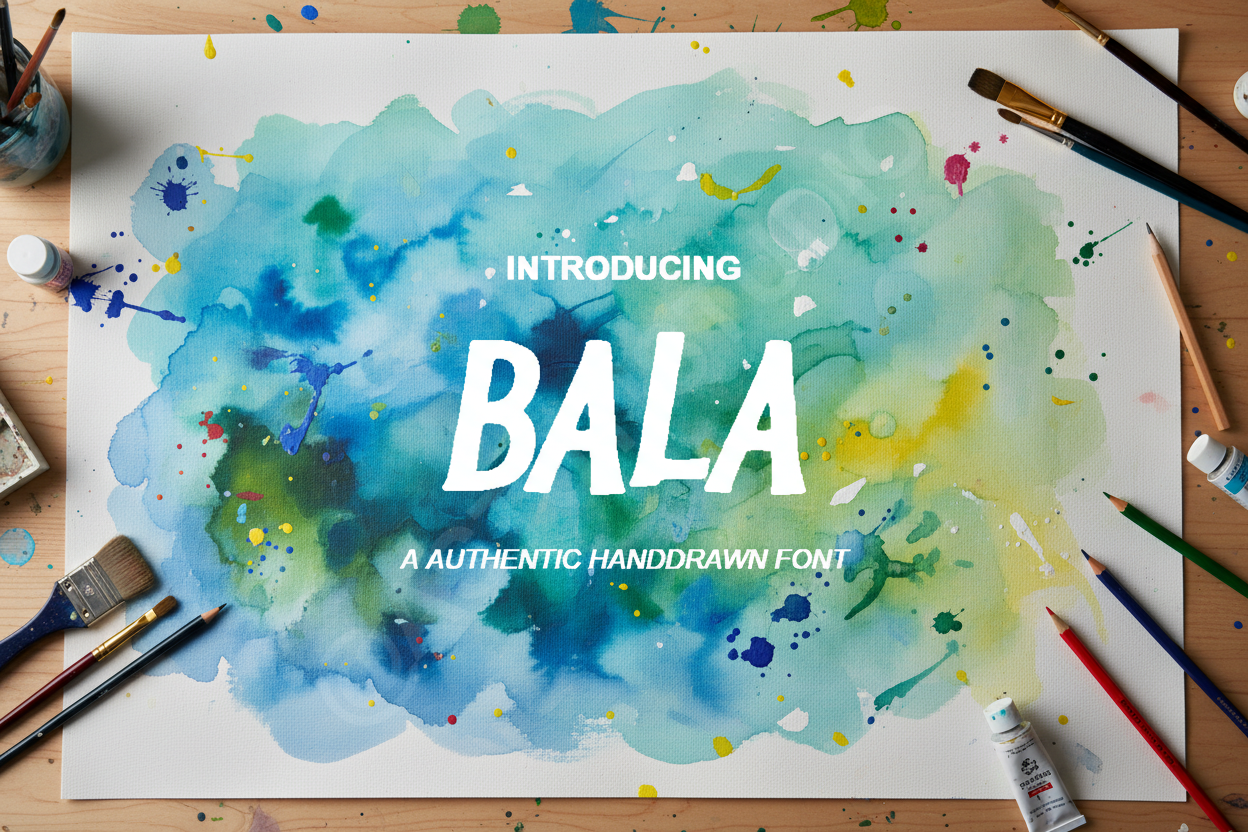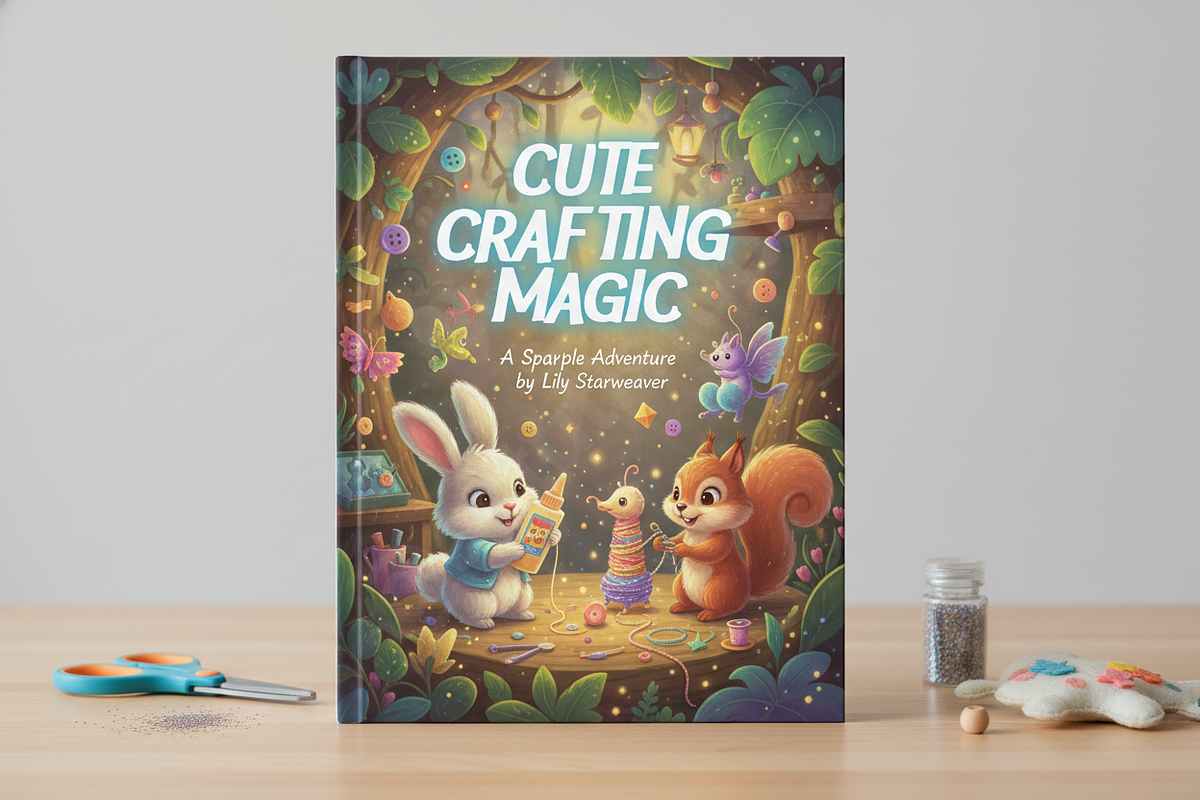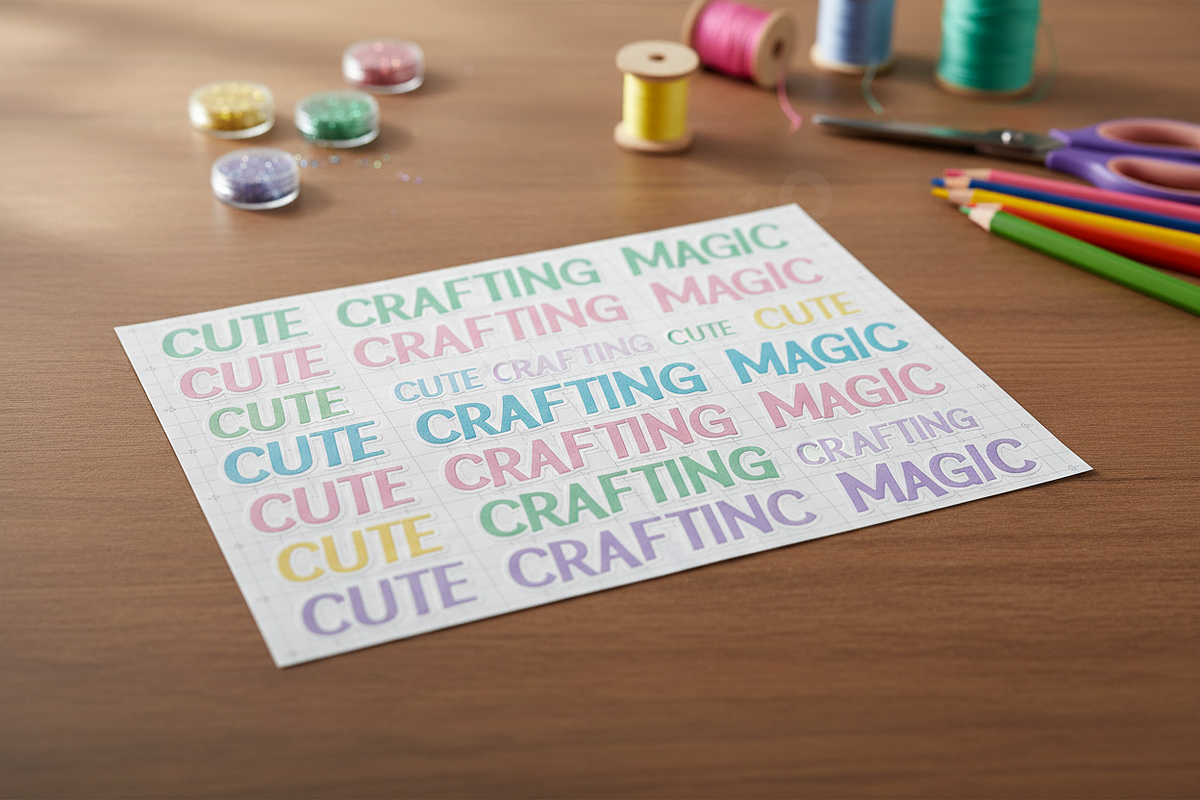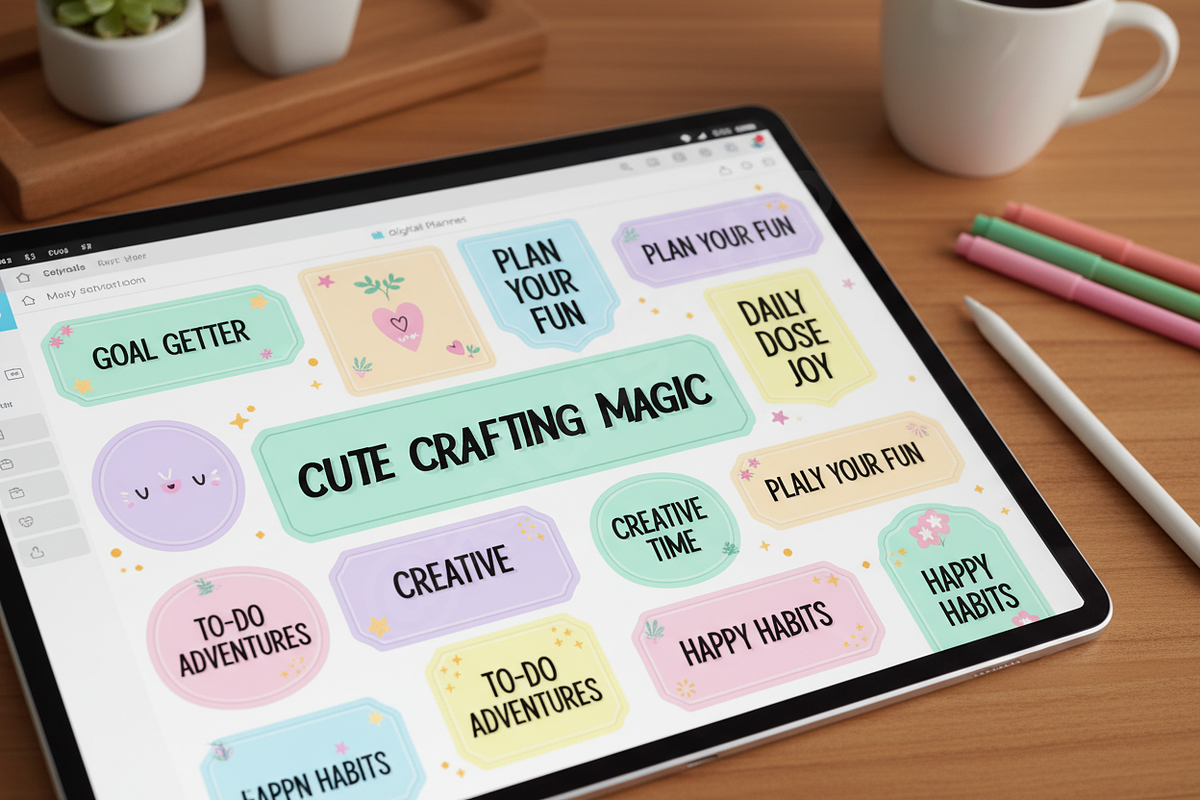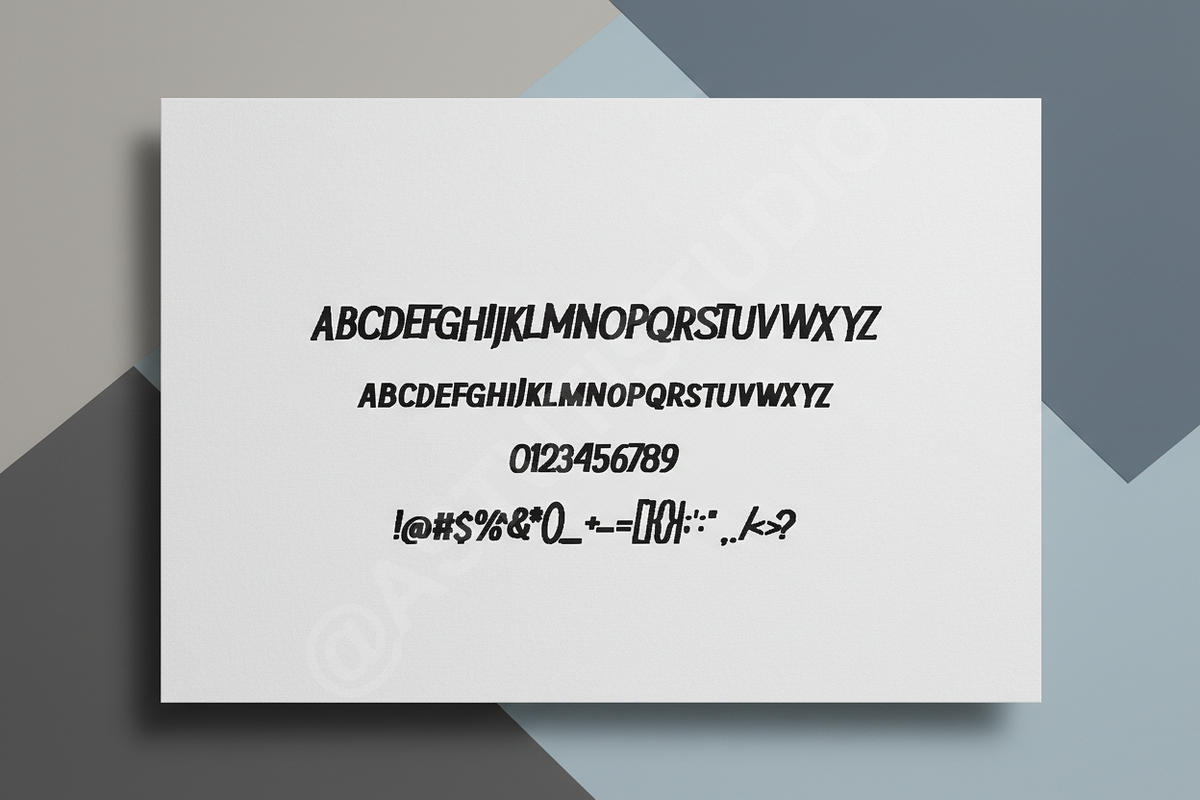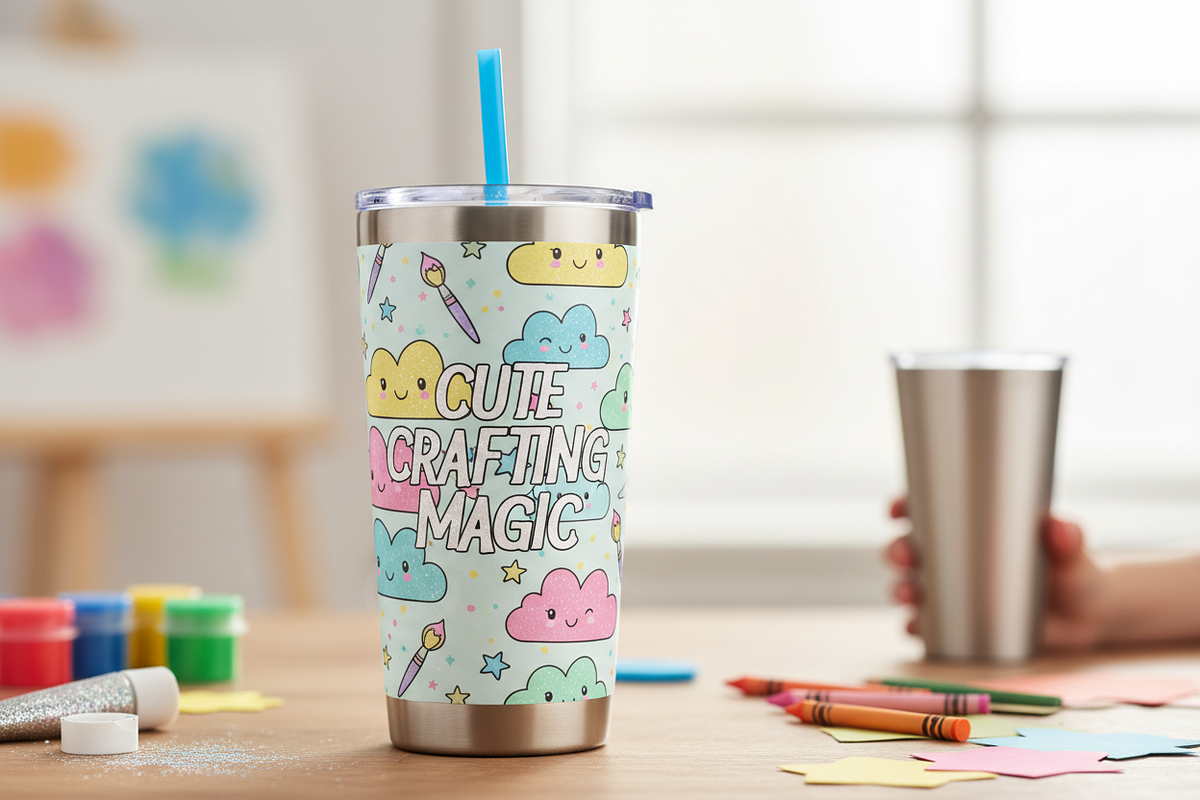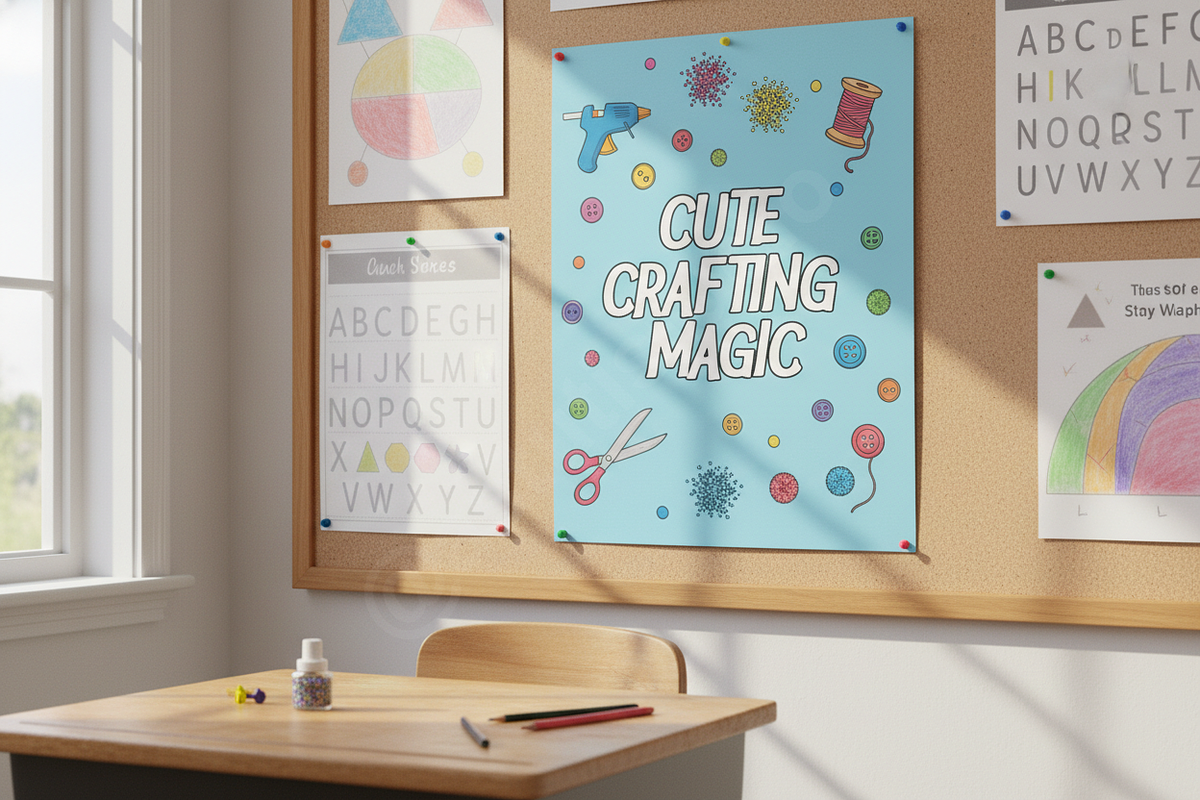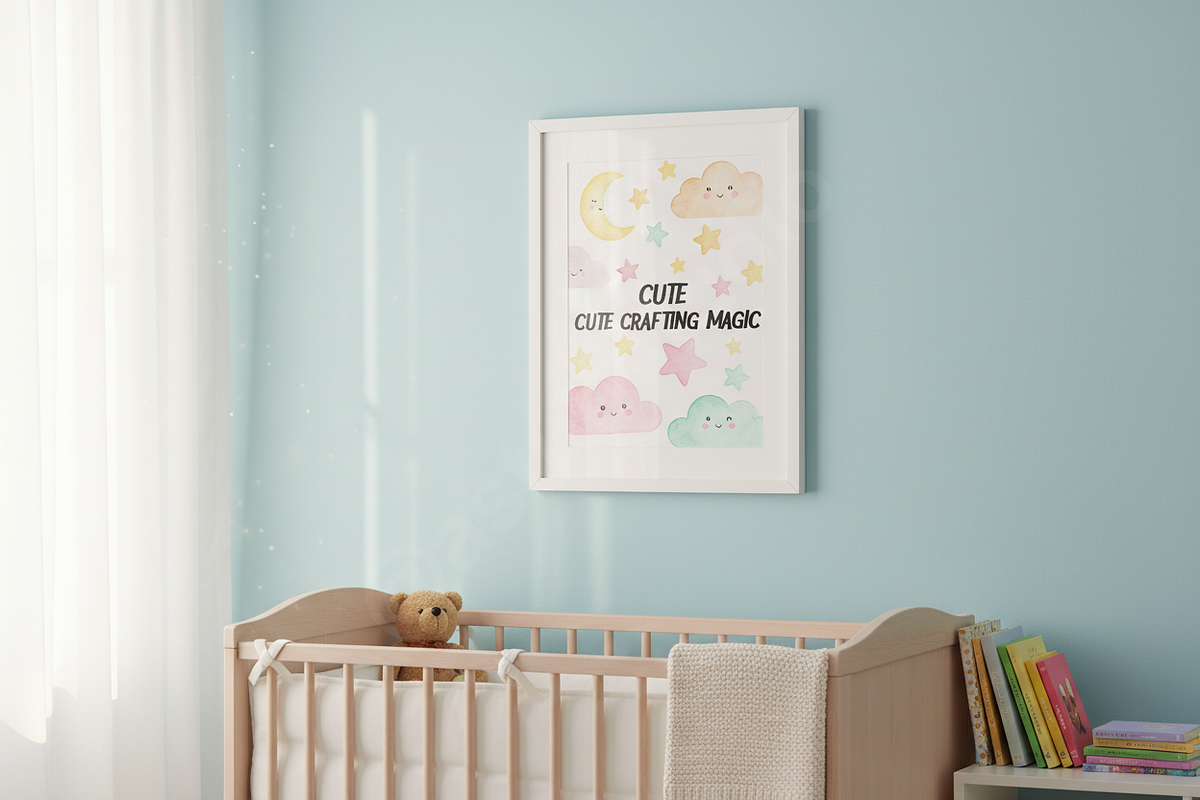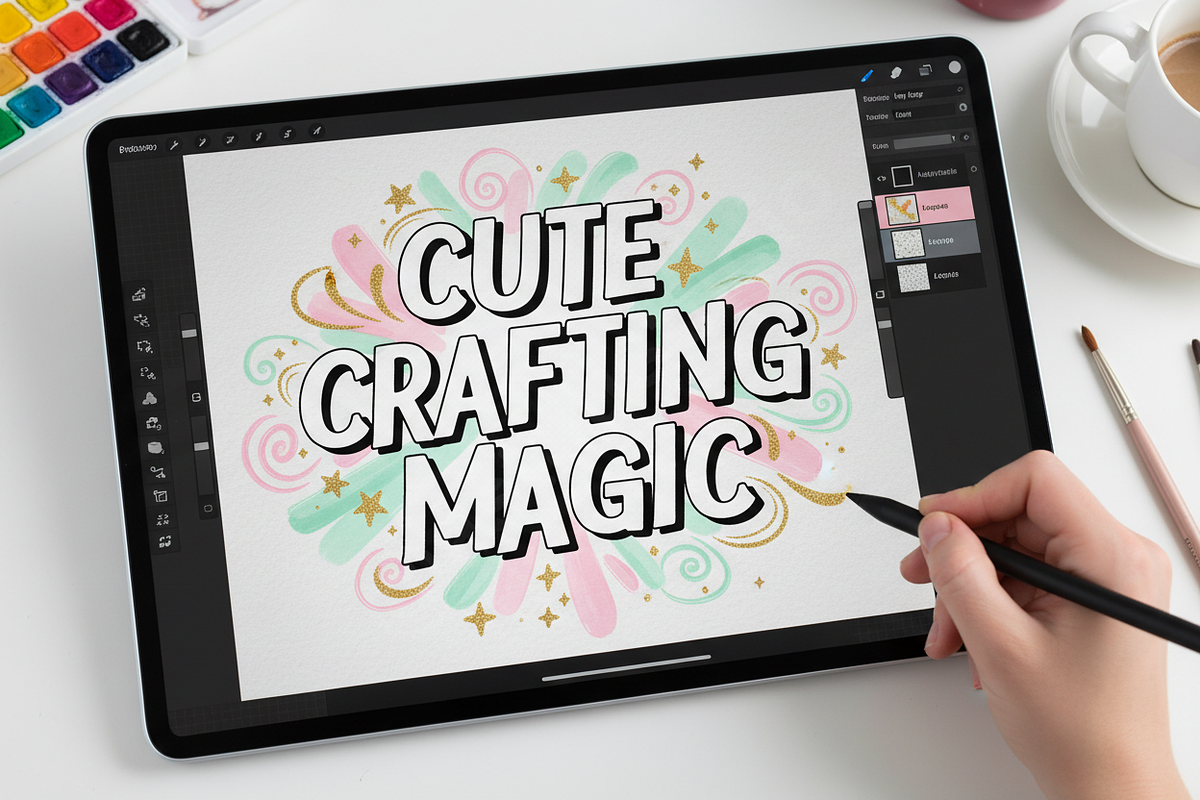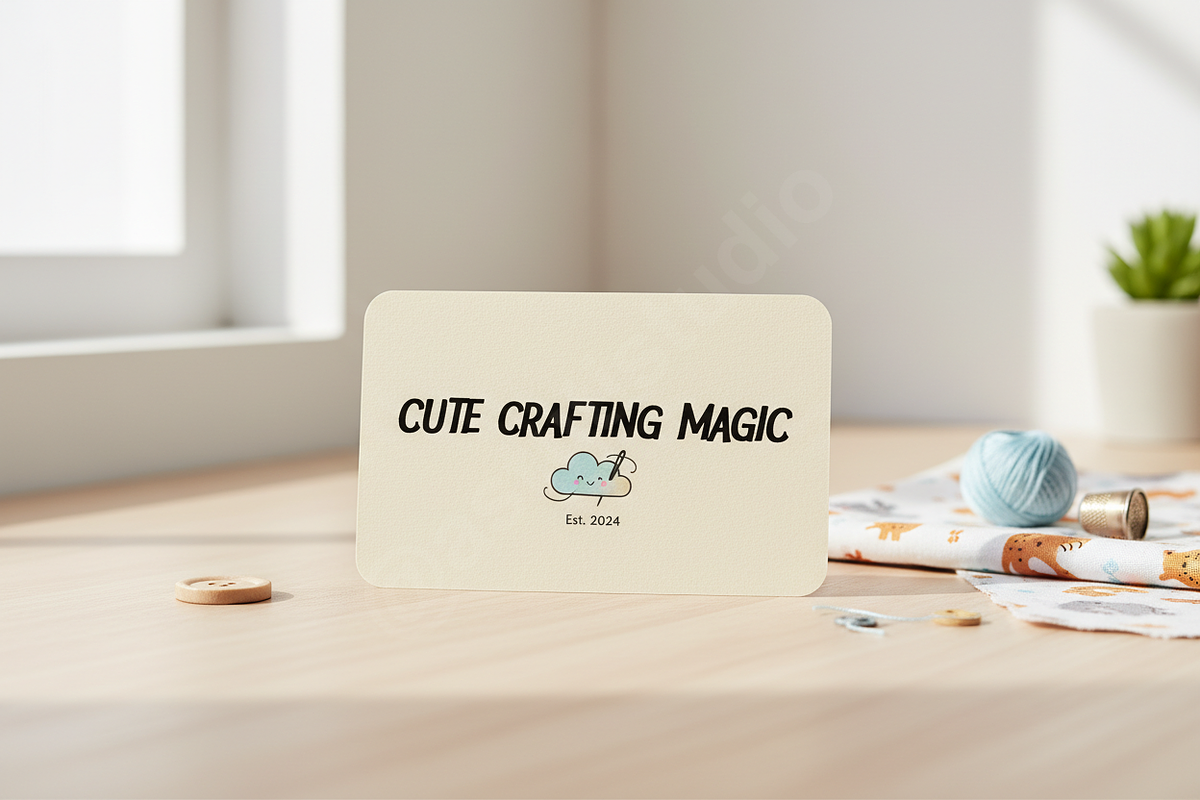
Bala Cute Kids Font | Playful Displa
✨ INTRODUCING BALA ✨
Elevate your designs with Bala, a Kids typeface carefully crafted to bring a professional touch to your creative projects.
✅ PERFECT FOR: • Nursery Wall Art and decorative prints for children's rooms • Logo branding for toy stores, candy shops, or childcare services • Children's book covers, headers, and internal illustrations • Cricut and Silhouette machine crafts (vinyl decals, personalized apparel) • Educational materials, classroom posters, and teacher resource packs